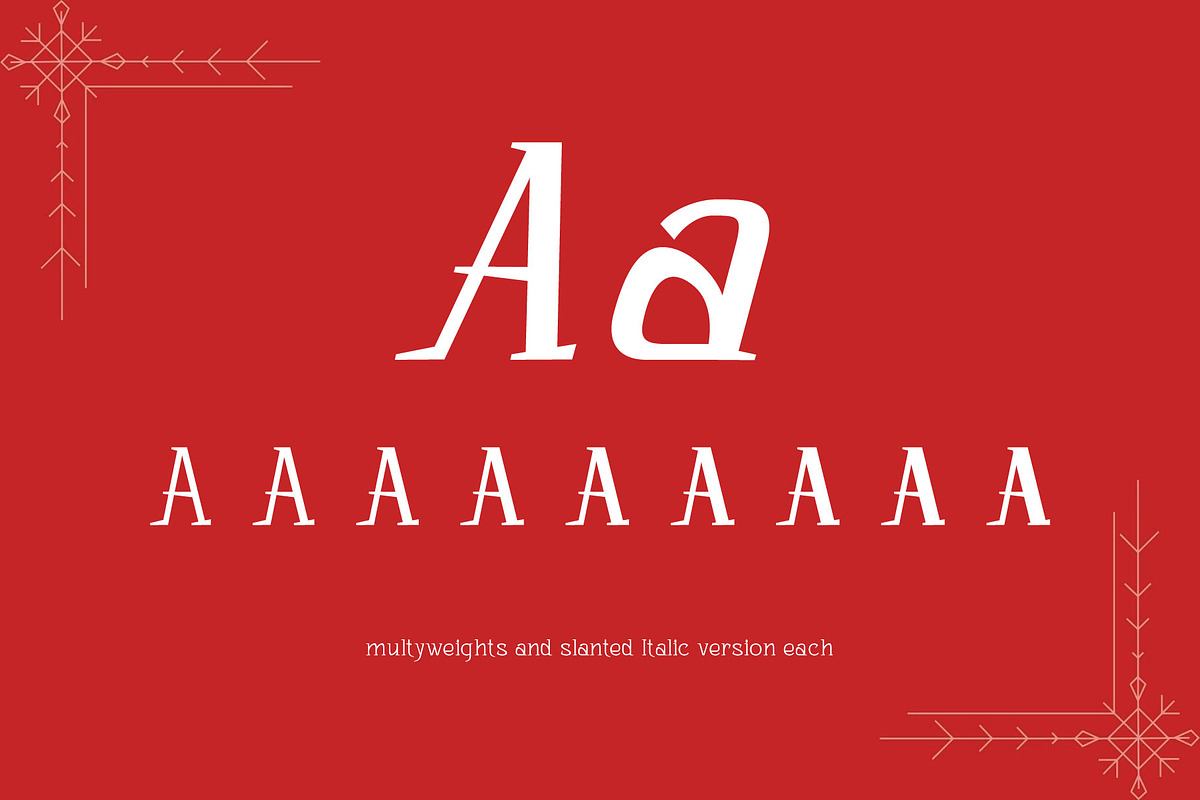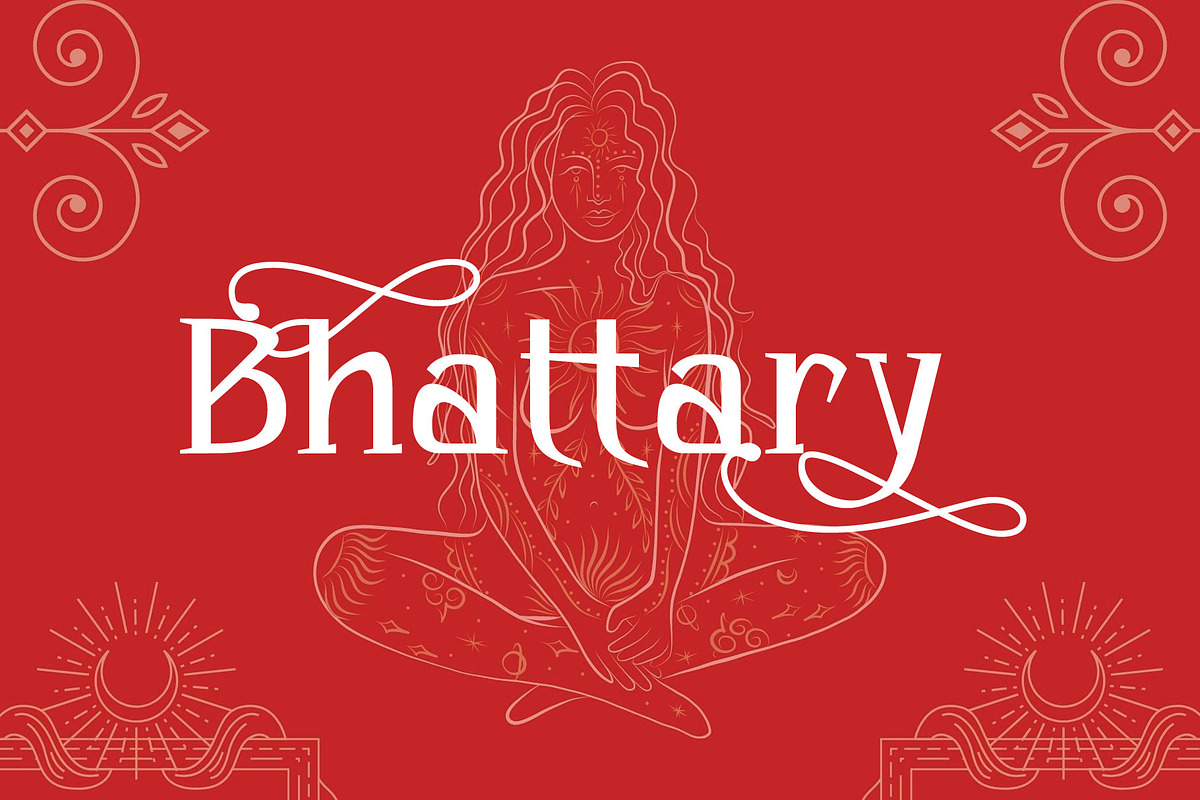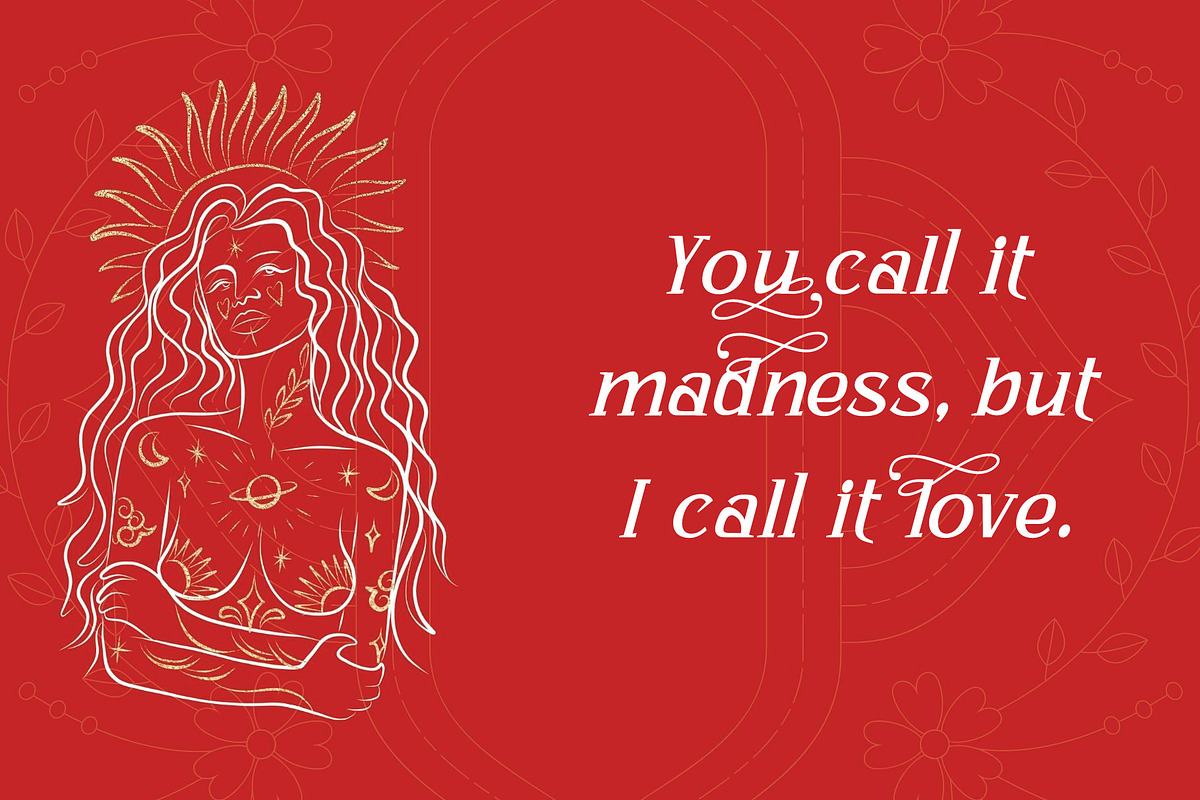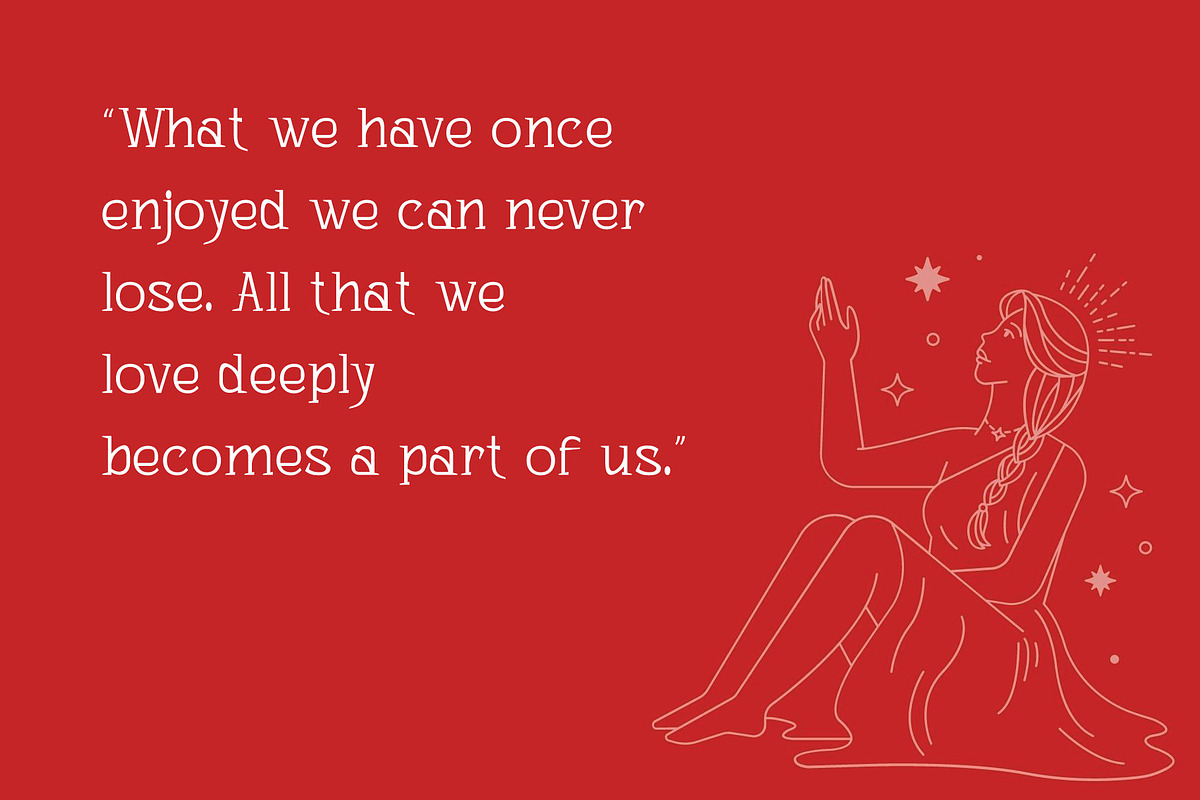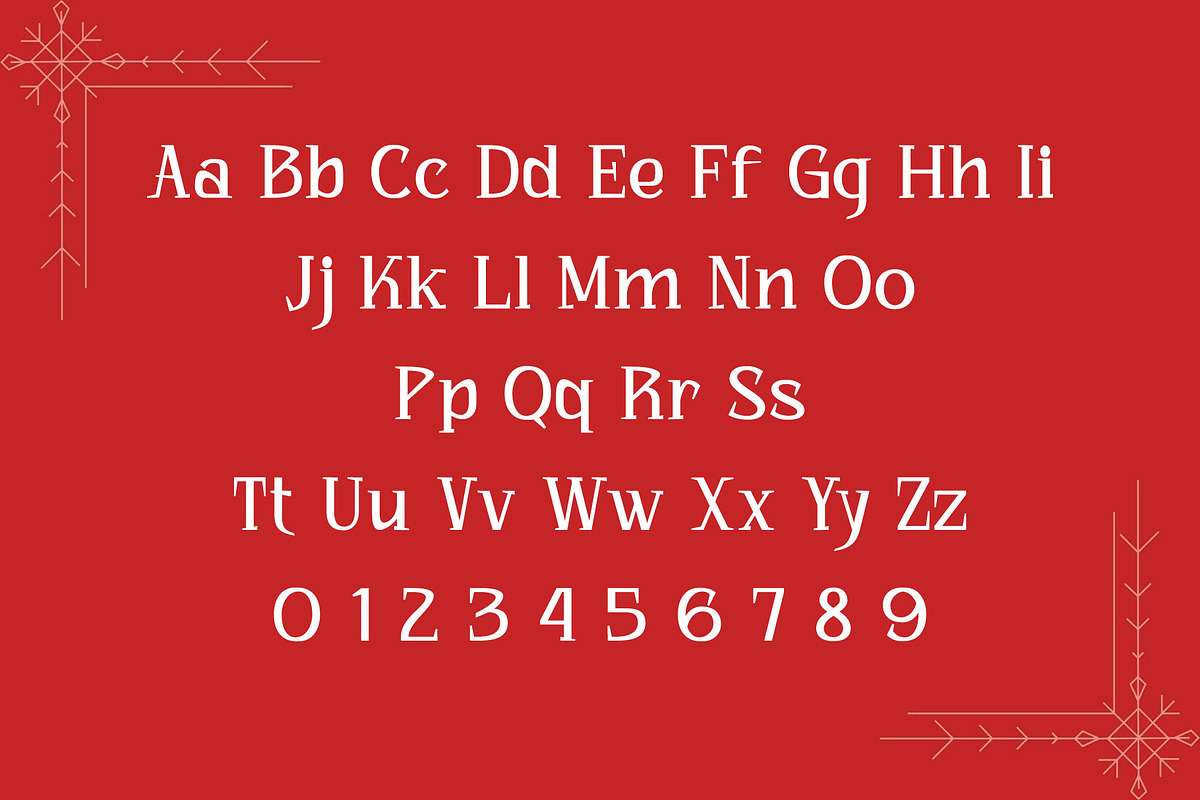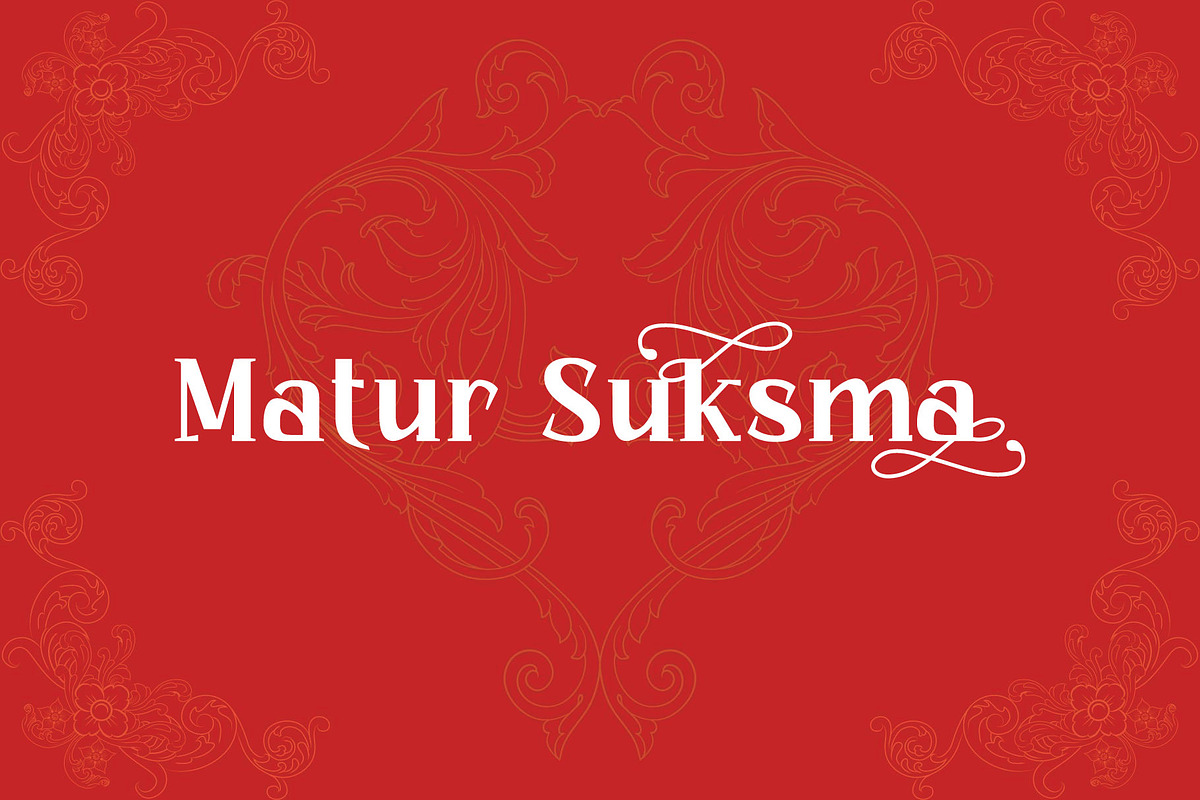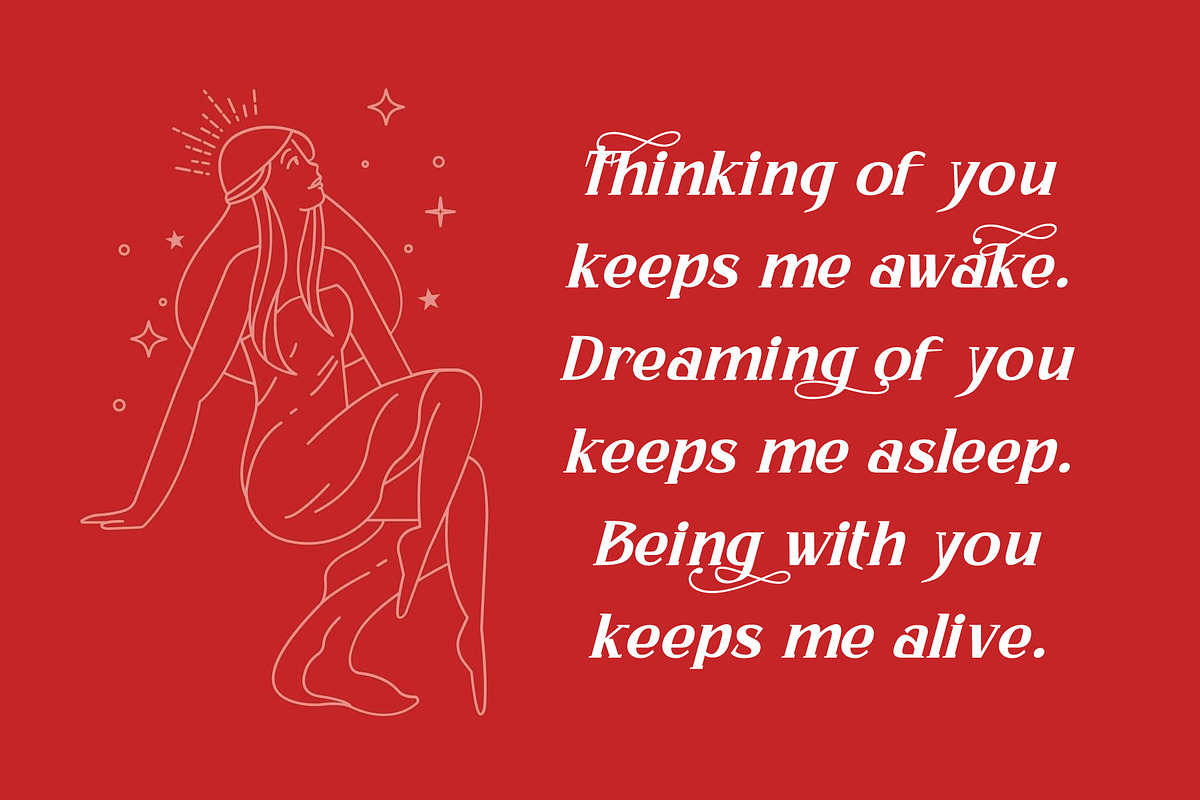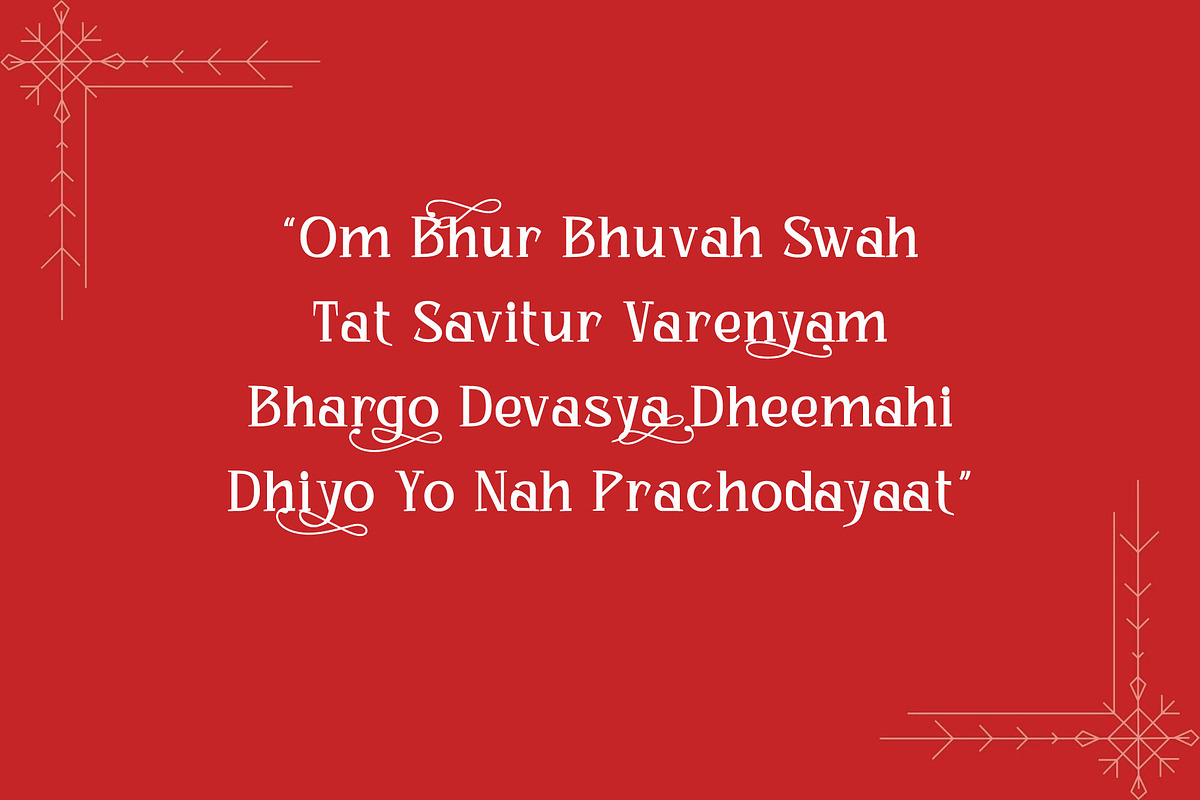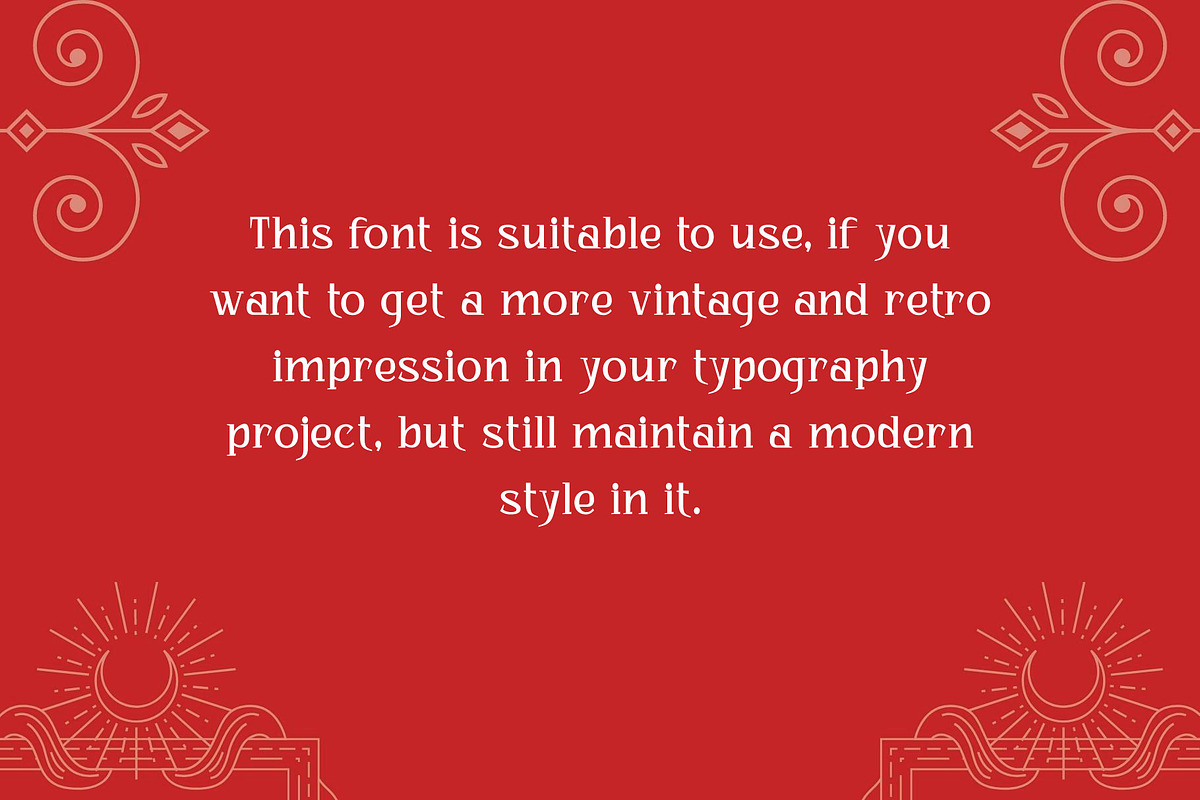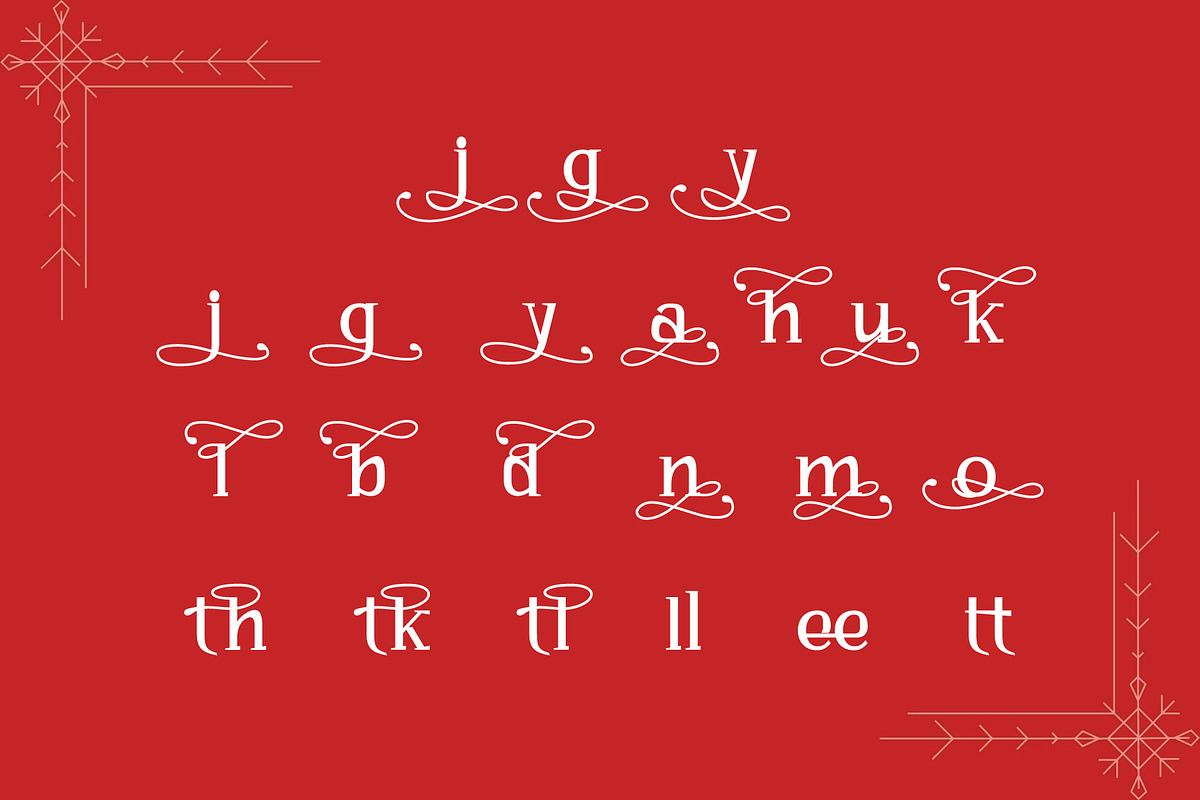
Bhattary - Retro Vintage Serif
Bhattary is a Retro Vintage Serif Font. This Bhattary is suitable to use, if you want to get a more vintage and retro impression in your typography project, but still maintain a modern style in it
Bhattary with a distinct appearance of Retro, 50's era. the golden era. It works well in posters, CD Cover, T-shirt / merchandise design, magazine,the possibilities are endless!